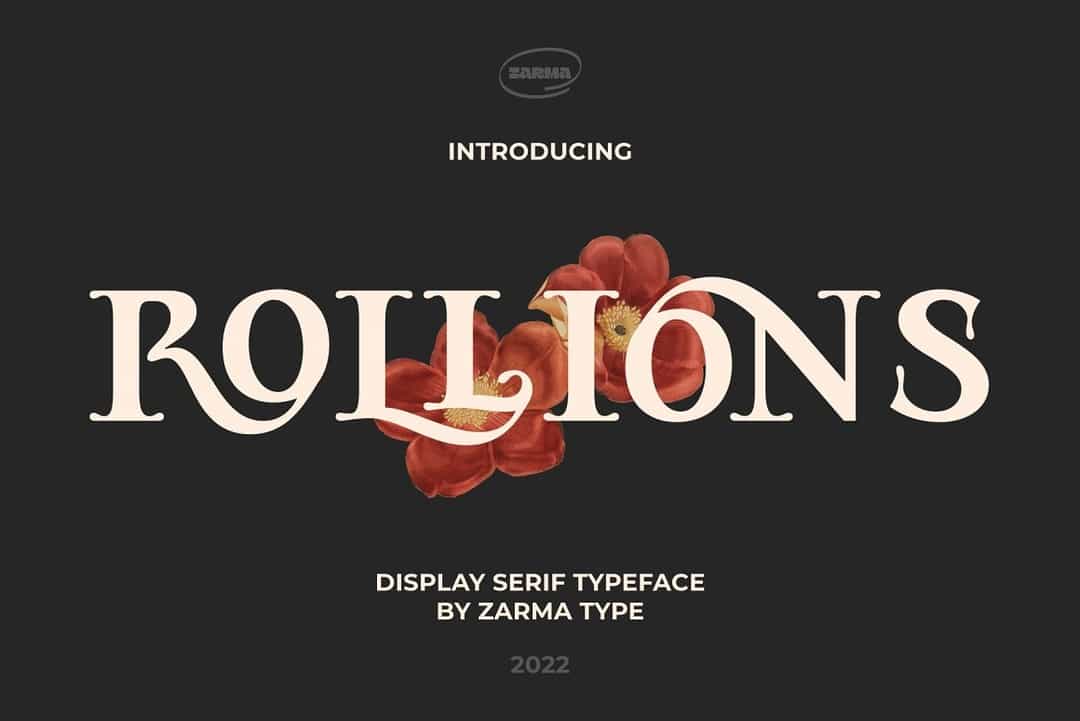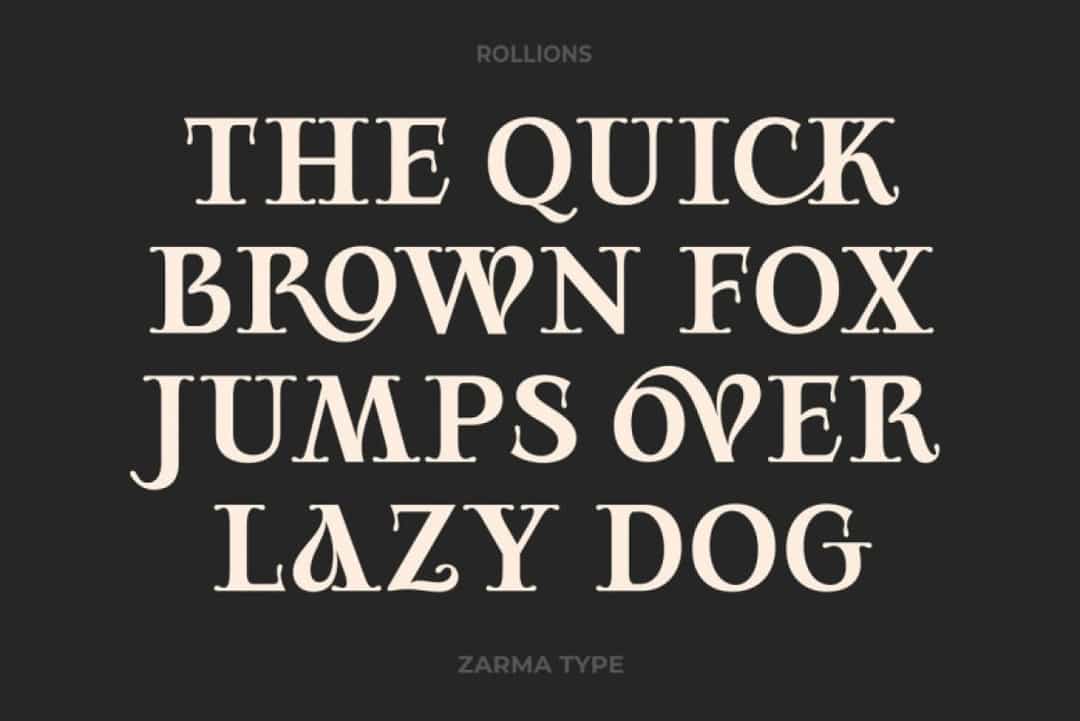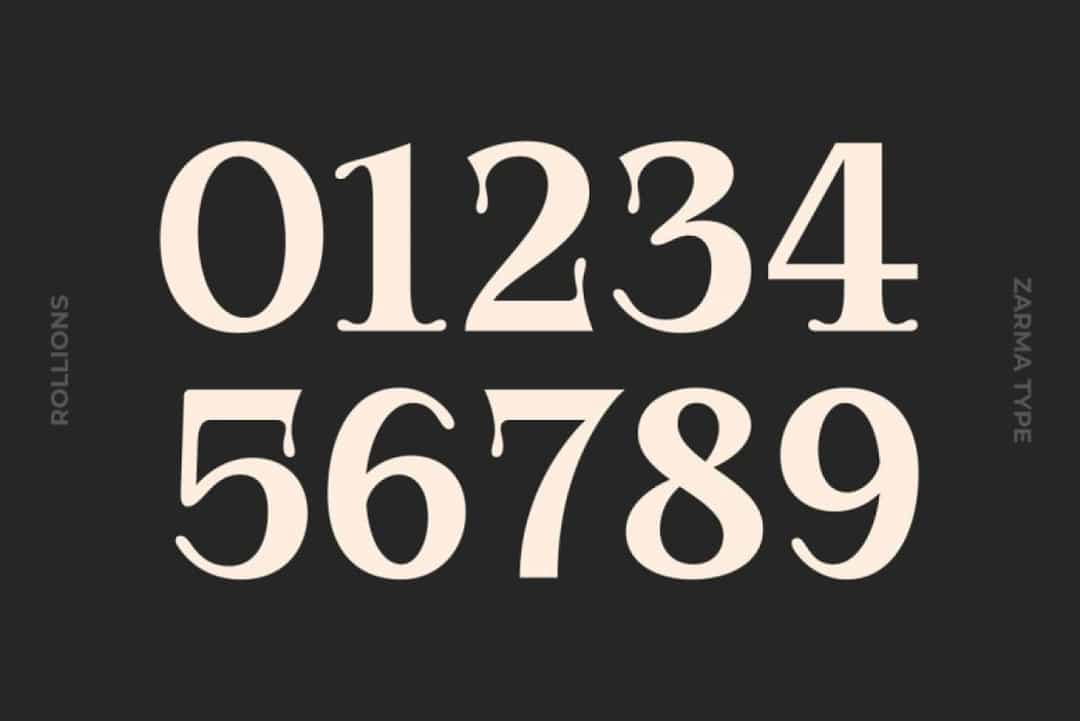
Rollions is an all-caps show serif typeface featuring an attractive rounded serif. With Stylistic Sets and Disregardless Ligatures along with Multilingual support, this font will make your work even more engaging. Use Rollions as an eye-catching logotype, header or headline with something striking and clear for maximum impact!